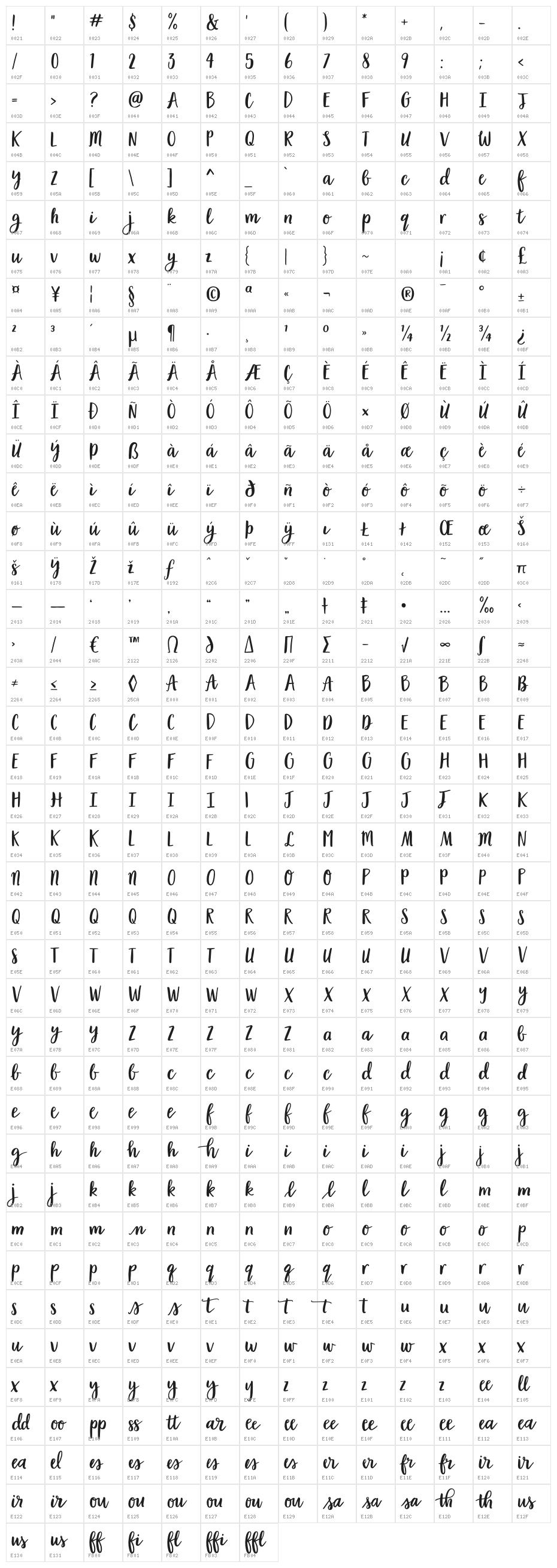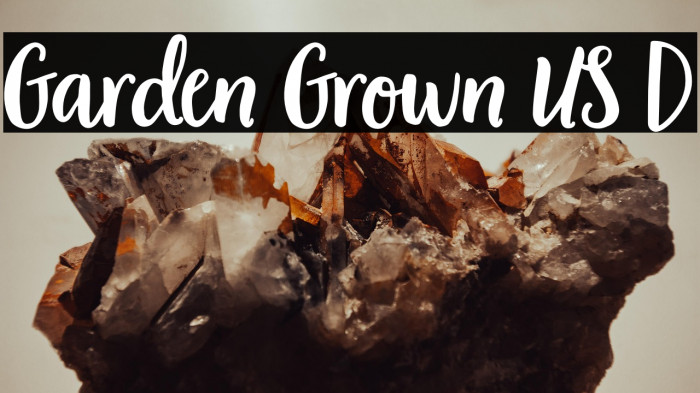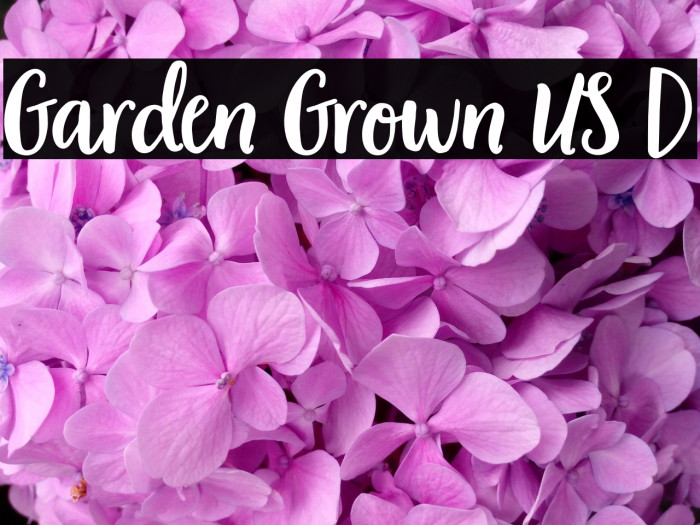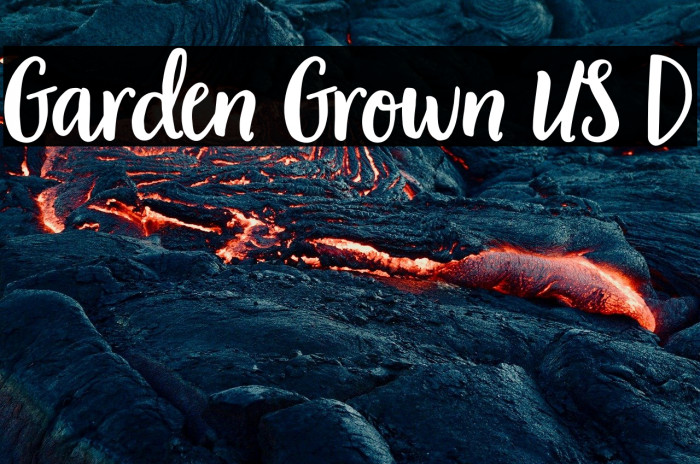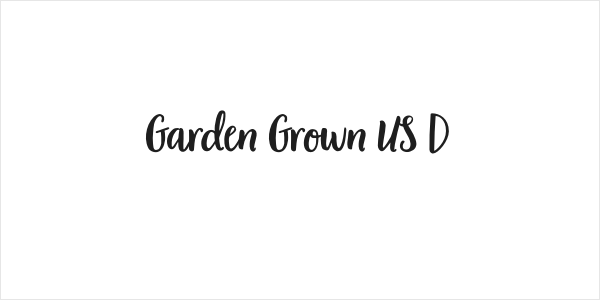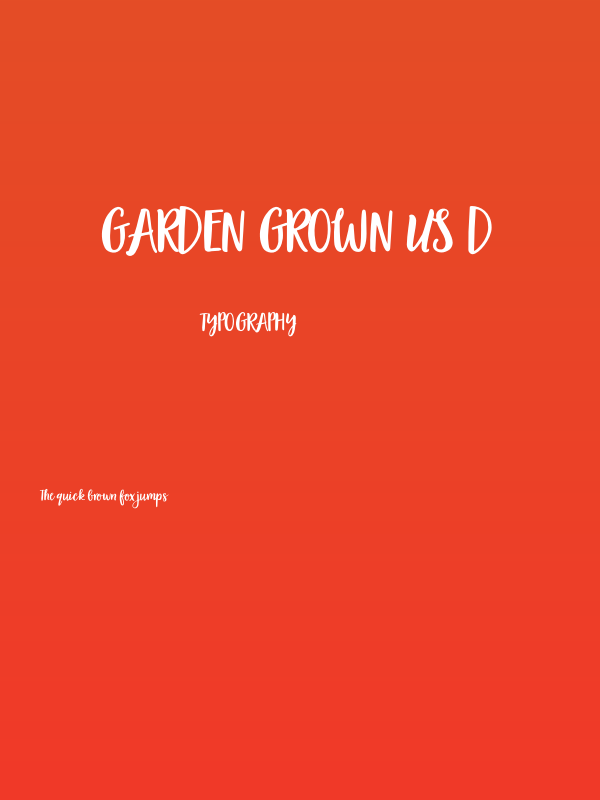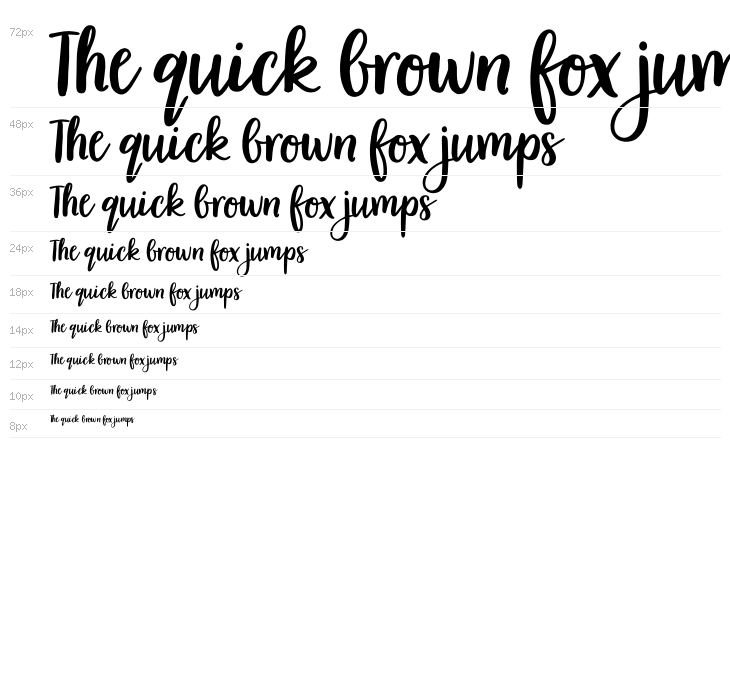
Garden Grown US D Font
Garden Grown US D Description
This font features a lively and energetic handwritten style, characterized by its bold and flowing letterforms. The uppercase letters are tall and slightly condensed, while the lowercase letters exhibit a playful and dynamic rhythm with varying stroke widths. The numerals are consistent with the overall style, maintaining the same boldness and fluidity. Special characters are creatively integrated, enhancing the font's expressive nature. The strokes are smooth and rounded, giving it a friendly and approachable appearance. This font is ideal for projects that require a personal touch, such as invitations, greeting cards, or branding materials that aim to convey warmth and creativity.